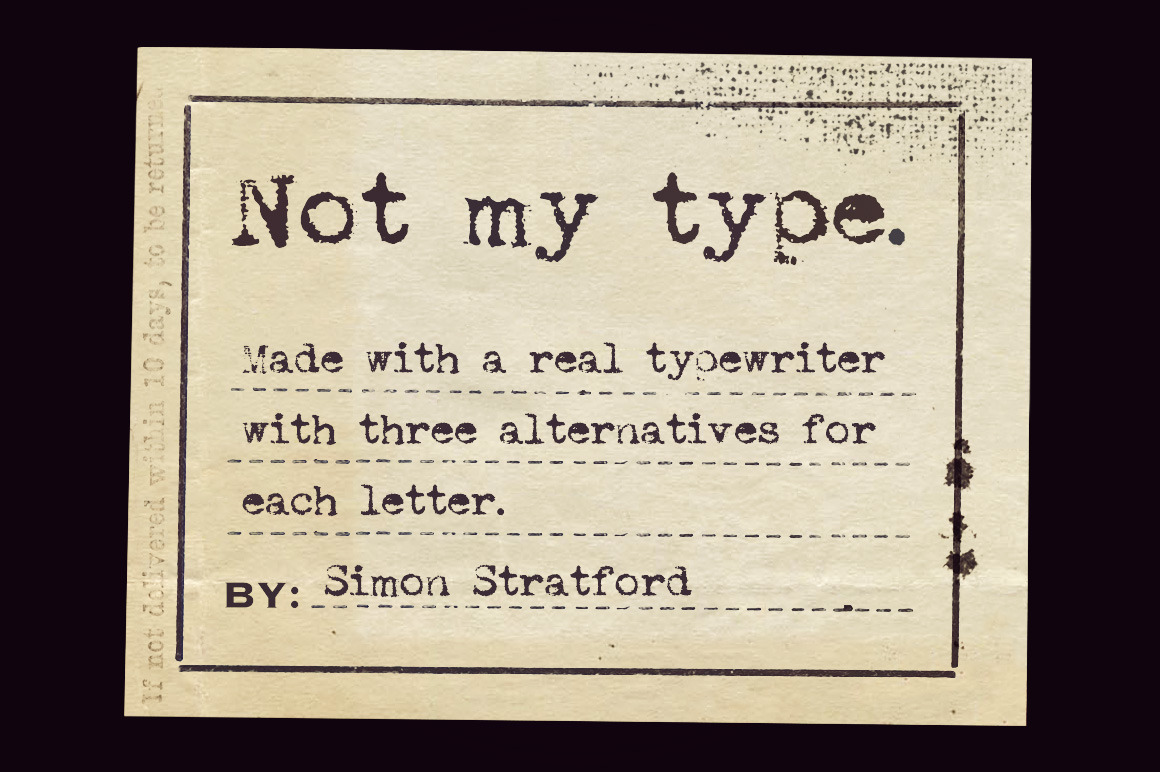
Typewriter typeface not my type
Typewriter font anyone? Not my type font was created with a real typewriter. To be specific it was on Oliver courier typewriter that I bought at an antique market.
I originally bought it, to take a picture of it. The typewriter that is—for one of my image packs.
It seemed to make sense to create a typeface from it—so I did. It's one of the most detailed typewriter fonts you can find here on the Creative Market. With 3 alternatives for each character.
If you want your design to have that nostalgic typewriter effect this is perfect. It's old-fashioned and retro with just a hint of grunge. With the 3 different versions (see contextual alternatives below) you can make it look like a real impact typewriter.
Typewriter font Contextual Alternatives
I created 3 versions of every letter and number that get progressively bolder. If you enable contextual alternatives in your design application the letters will change automatically as you type.
Typewriter with lots of detail
I went to great trouble to keep the detail from my original scans. I've yet to see another typewriter font that has the same amount of detail as this one.
- Uppercase & Lowercase letters with three Alternatives
- Numbers with three alternatives